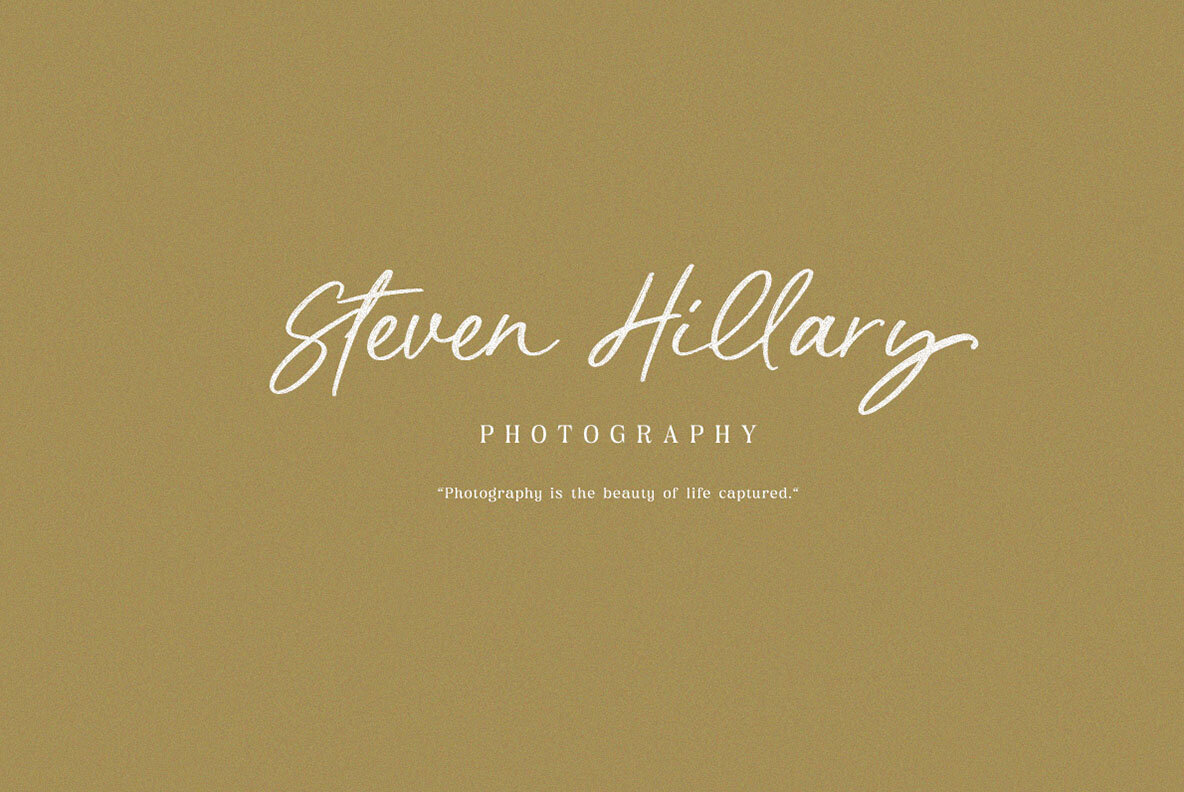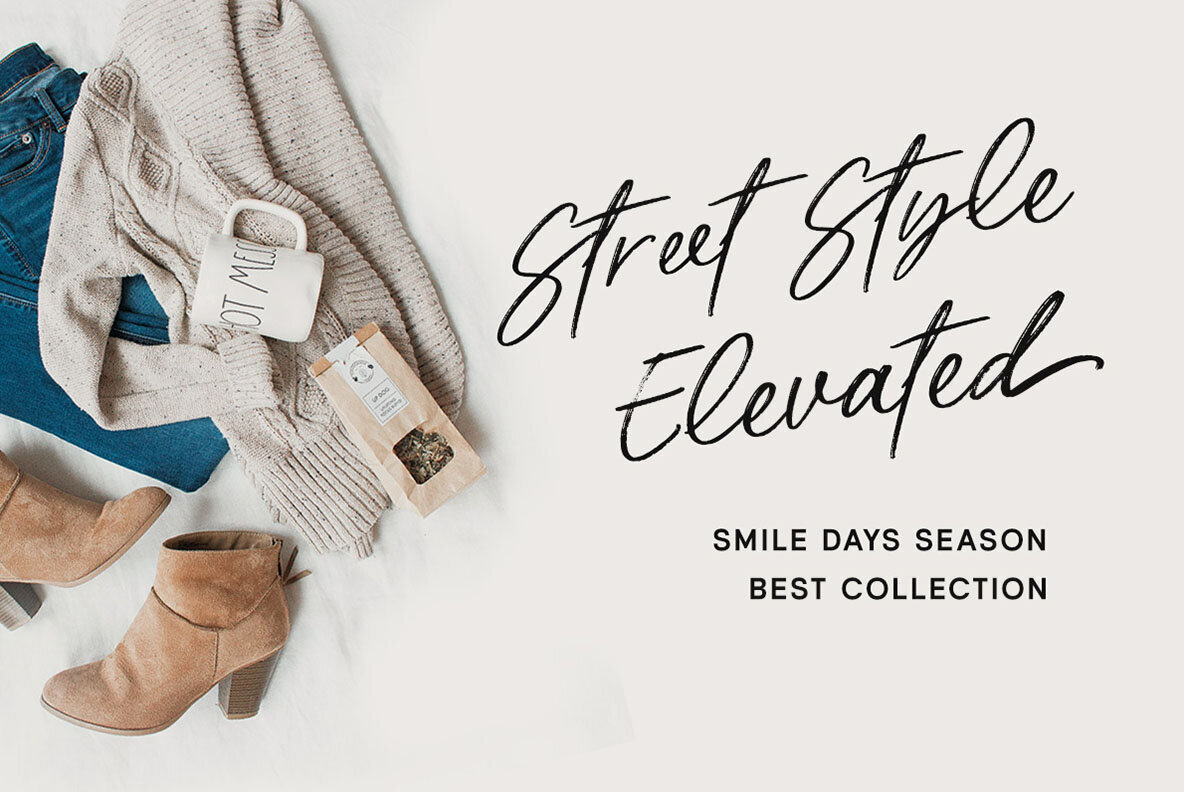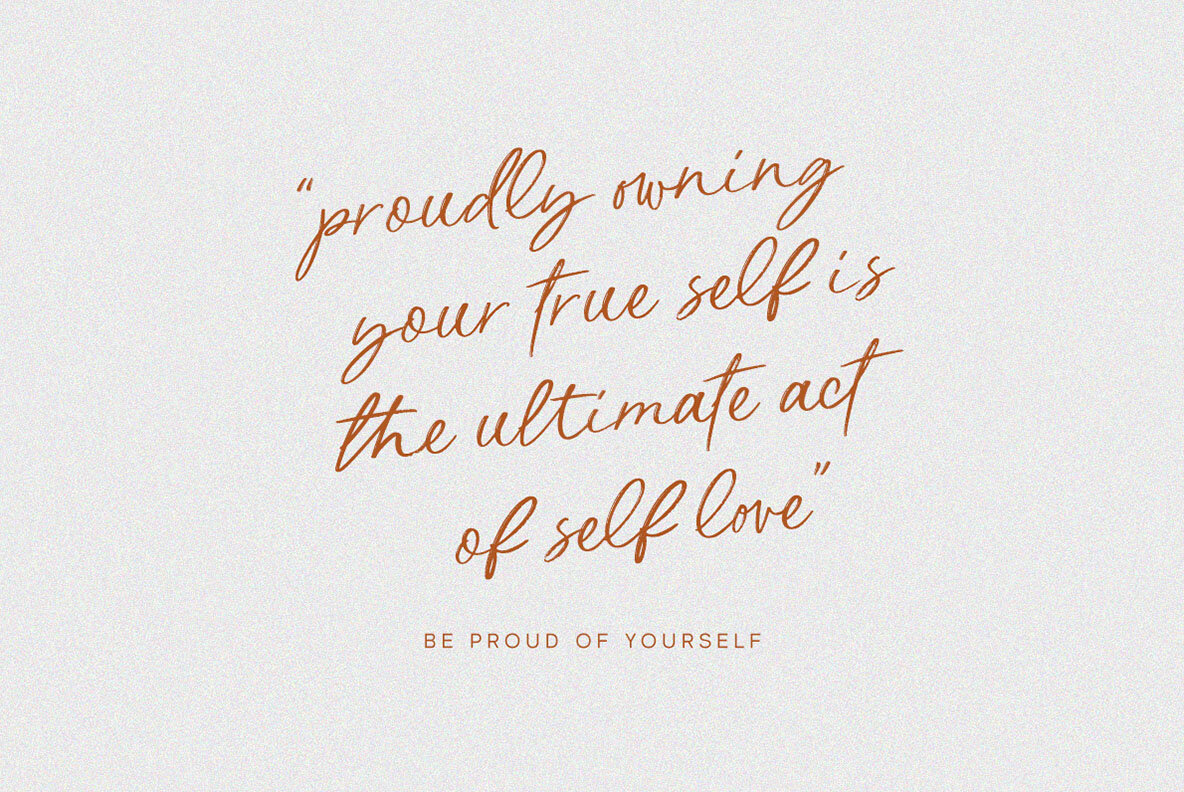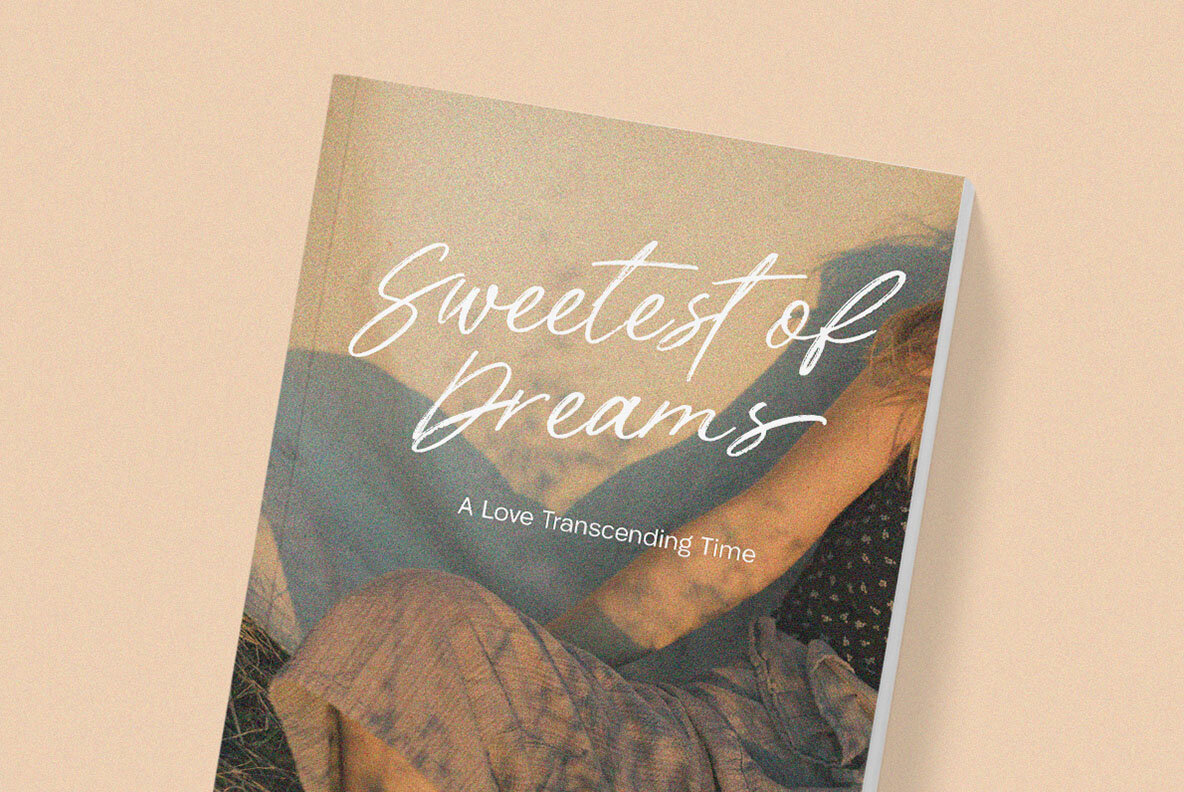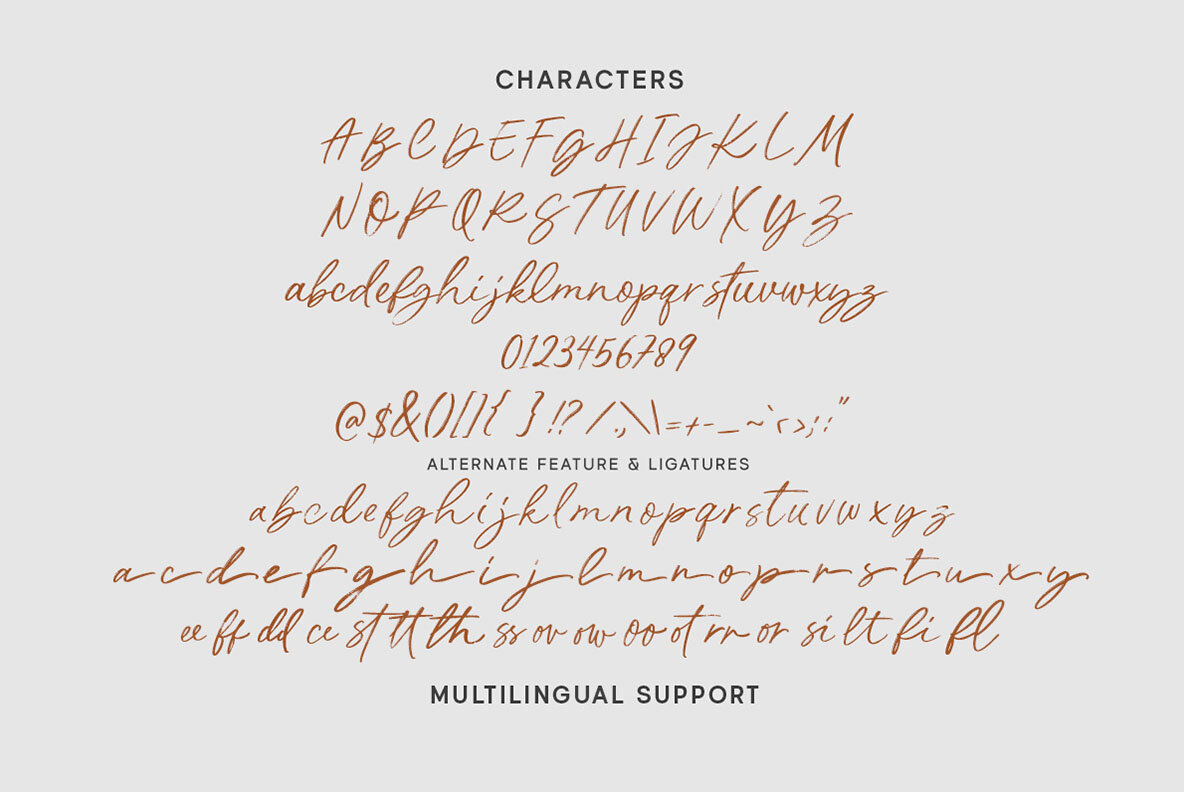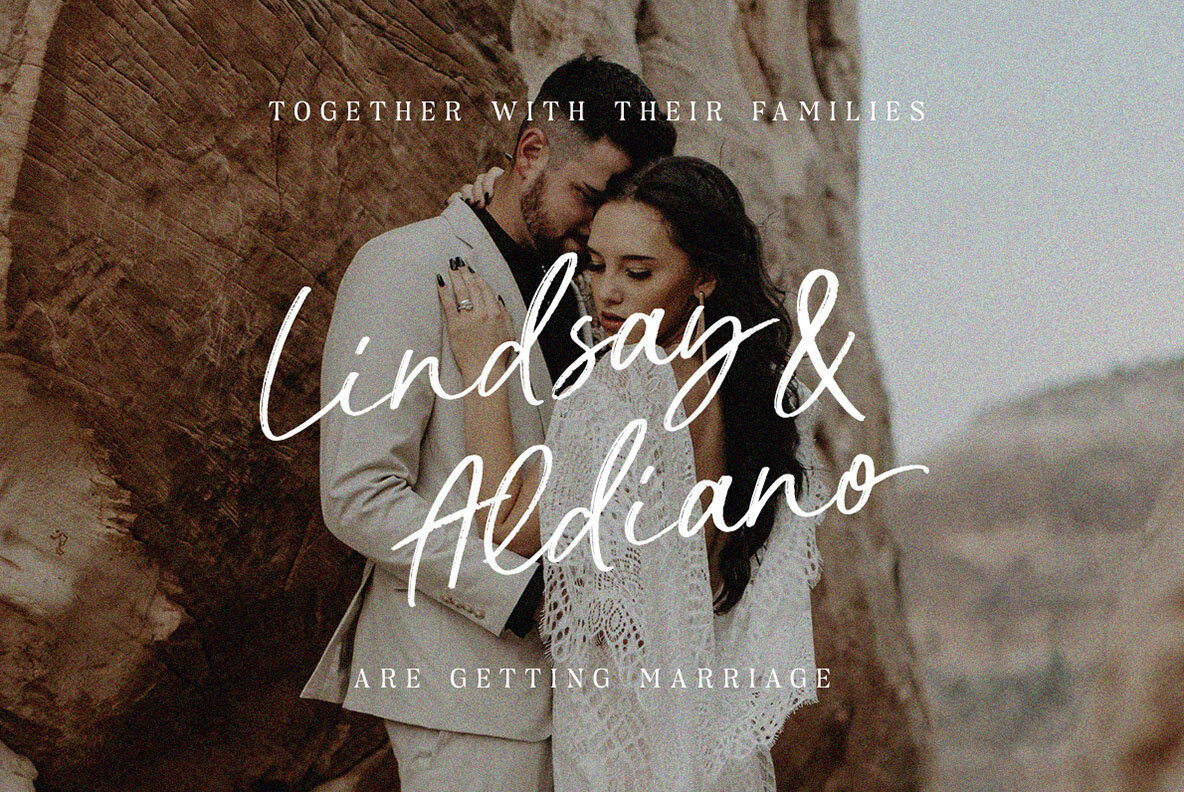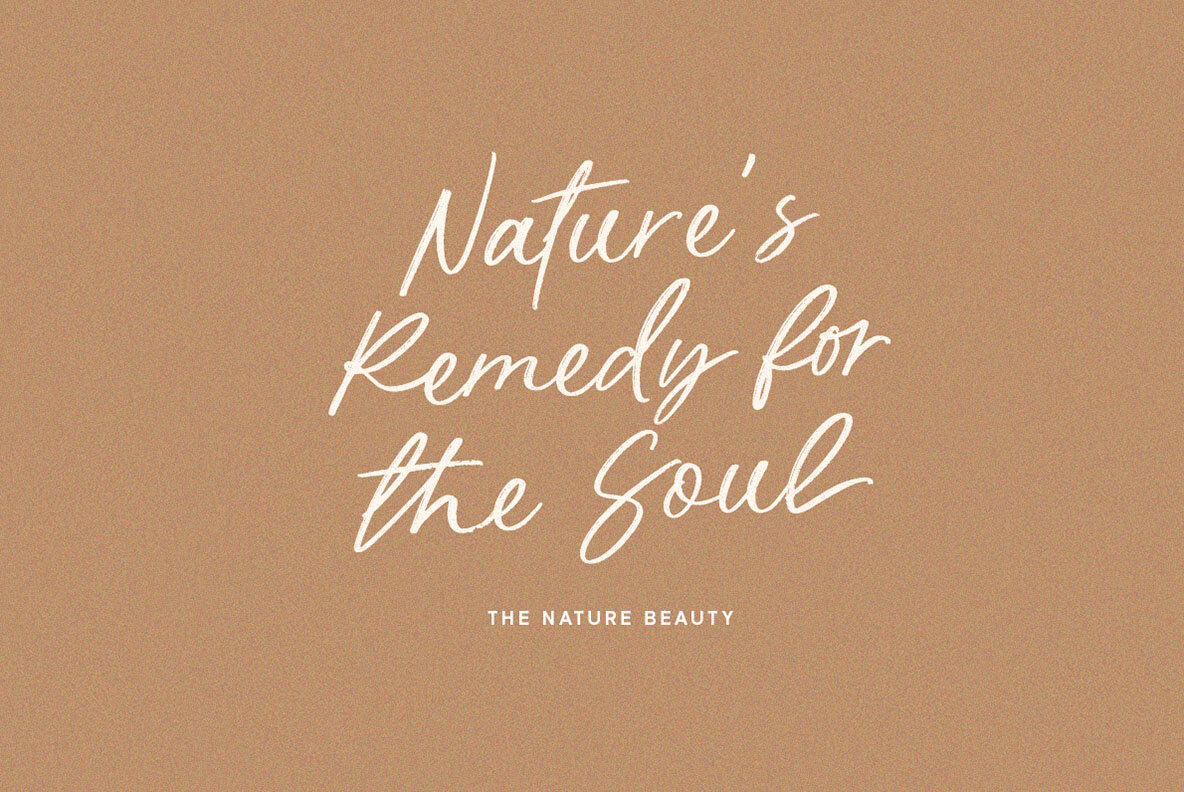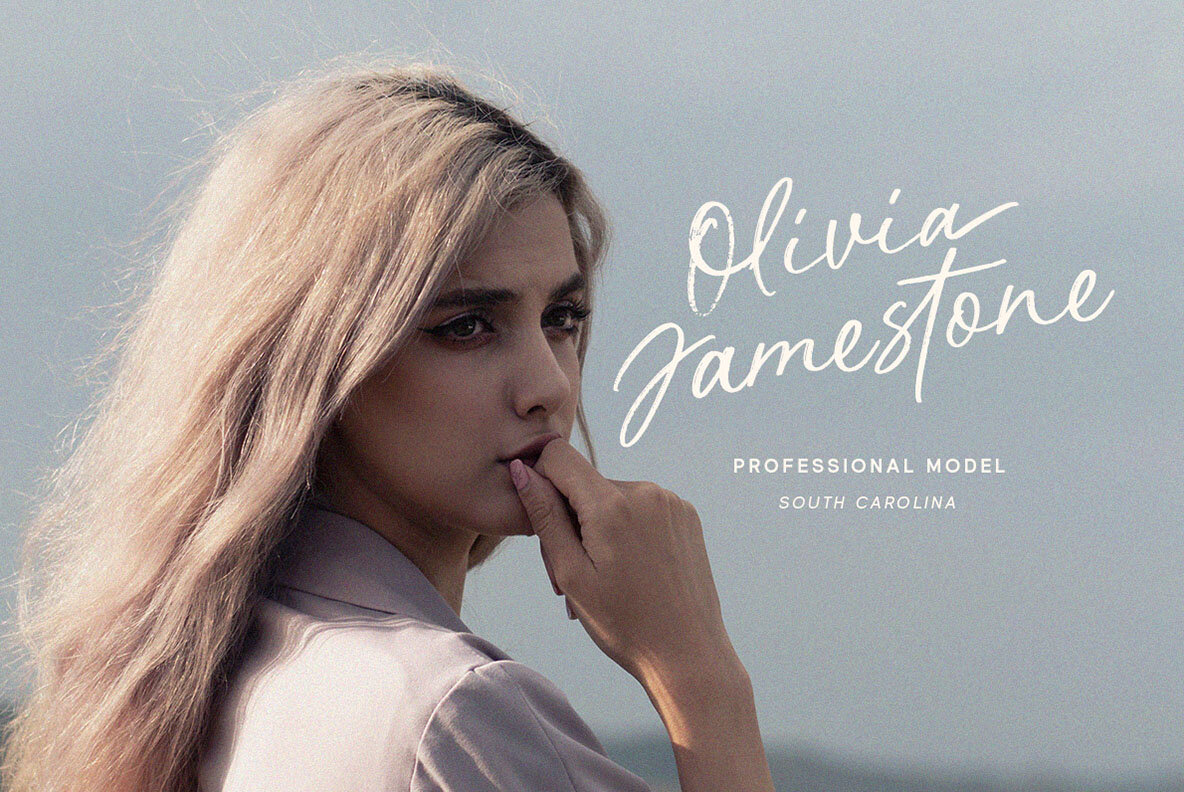
Aurelia Michelle Font
Aurelia Michelle Regular
Meet Aurelia Michelle, the hand-drawn font that exudes effortless femininity and chic sophistication. With its brush texture and delicate curves, this font is perfect for adding a touch of elegance to any design project, especially in logo, and the other various formal forms such as invitations, labels, logos, magazines, books, greeting / wedding cards, packaging, fashion, make up, stationery, novels, labels or any type of advertising purpose. Features : We highly recommend using a program that supports OpenType features and Glyphs panels like many of Adobe apps and Corel Draw, so you can see and access all Glyph variations.